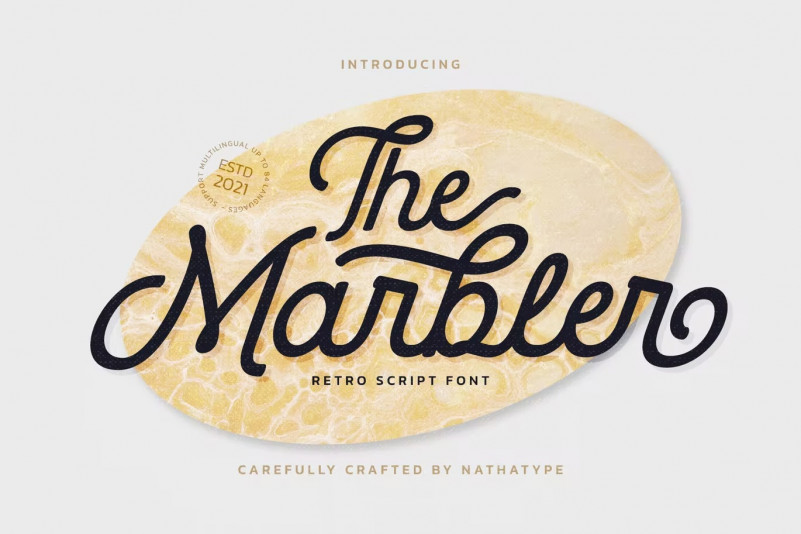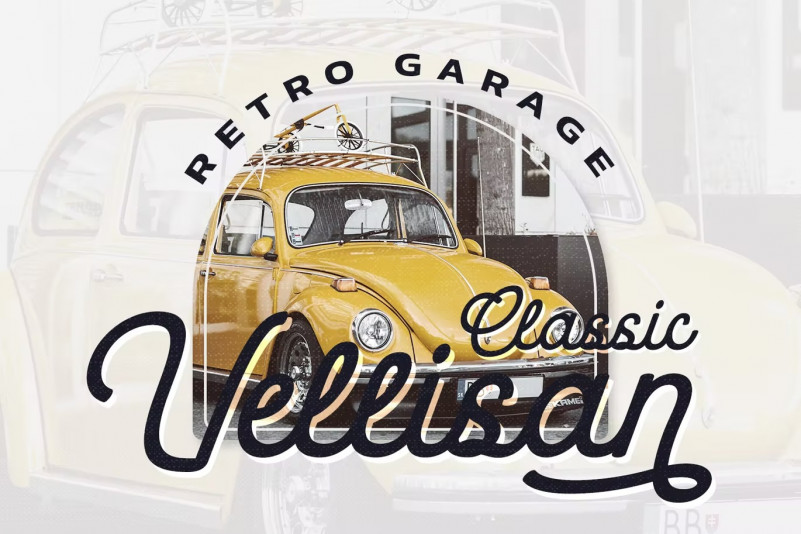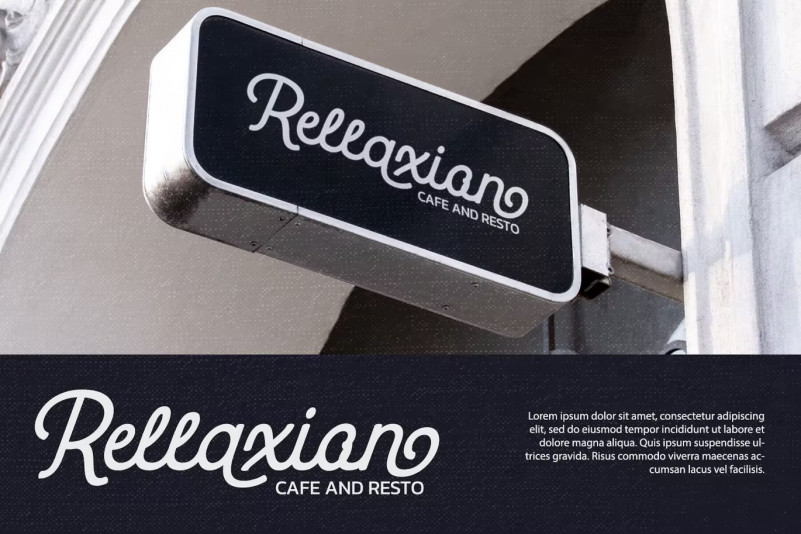
Tha Marbler Font
The Marbler is a handwritten font with retro look. Inspired from 1960s style. Every stroke and curve was created to entice happiness and elegance. The best choice to ensure a great font match for your designs and projects! Well suited to titles, poster designs, branding, quotes, and logos.